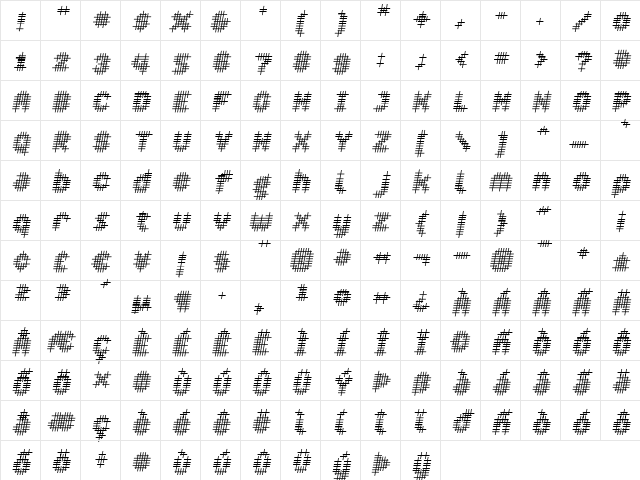
Overcross Oblique
Foundry: YouWorkForThem
Designer: Michael Cina
Overcross Family
Overcross Oblique
Complete Overcross Oblique glyph index. Displaying only characters natively supported by Overcross Oblique font.
Design Context for Overcross
Overcross is a composed and adaptable typeface that performs quietly and consistently across a wide range of design contexts. The slanted form adds forward momentum and visual energy.
Pro Tip: Use Overcross for emphasis, pull quotes, and subheadings where its slanted energy can add rhythm to the layout.